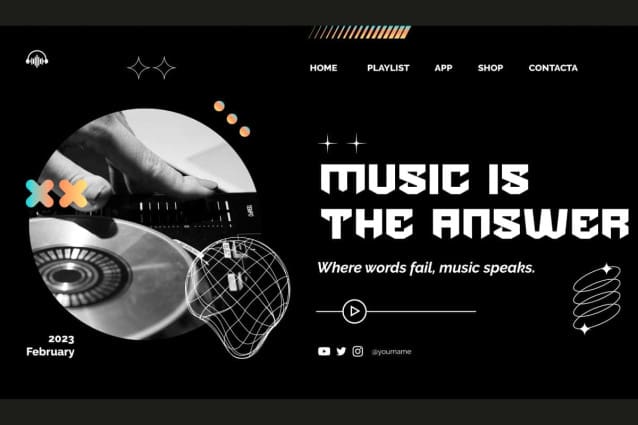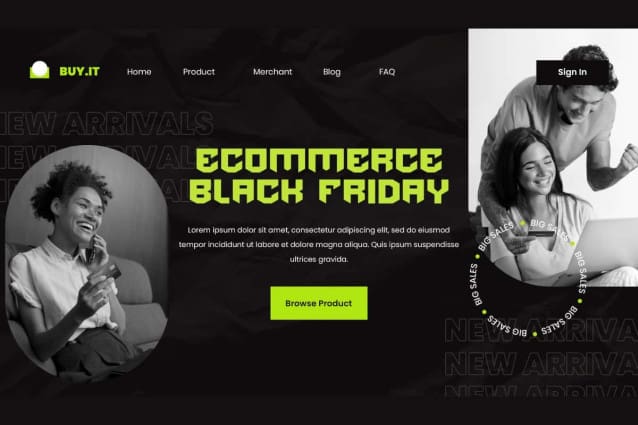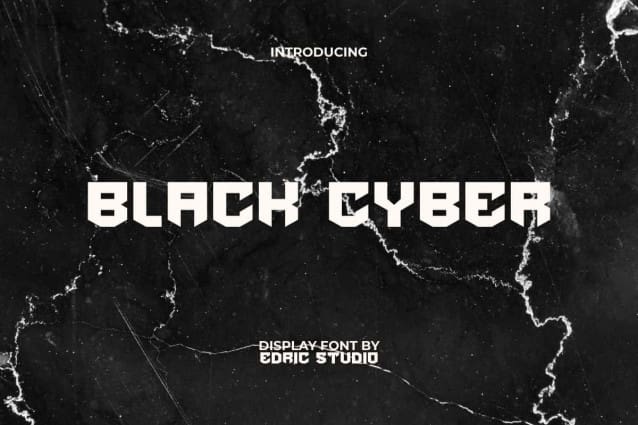
Black Cyber Font
Black Cyber Font is a plucky and charming display font, it has bold and strong characteristics that make it stand out in any design. The visuals of this typeface are always kept from being boring, look at the letters which have special cuts on each side and sharp angles that are clearly created in each letter. This font is suitable for a wide variety of projects such as brochure, cards, cover book, editorials, headers, invitations, labels, logos, posters, product mockup, product packaging, quotes, screen print, title, websites, and much more.
Black Cyber Font comes with a full set of ALL CAPS for Uppercase and Lowercase letters, Number, Punctuation, and Symbol. This display font is made to be striking and unique from a gothic base. Its solid shape, made more modern and simple makes it stand out as the main text. Excellent for automotive, clothing brand, fashion, games, graphic design, gyms, music, photography, sportswear brands, writers, and others.
Black Cyber Font also supports multilingual characters which are ready to use either on Windows or Mac machines with a simple installation. Combine different characters for a bespoke, handcrafted feel. It’s tested to work well in the Adobe Apps (Illustrator, Adobe InDesign, Adobe Photoshop) even work on Microsoft Word. All of these characters are available through the glyph panel, moreover each letter has its own unicode (PUA) so you can access all the characters easily.